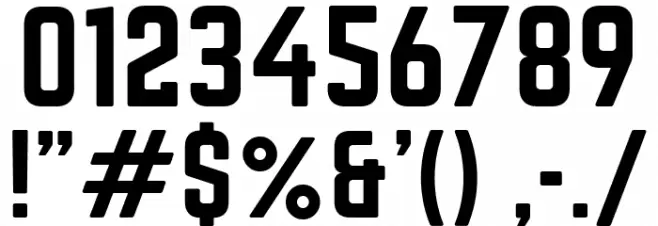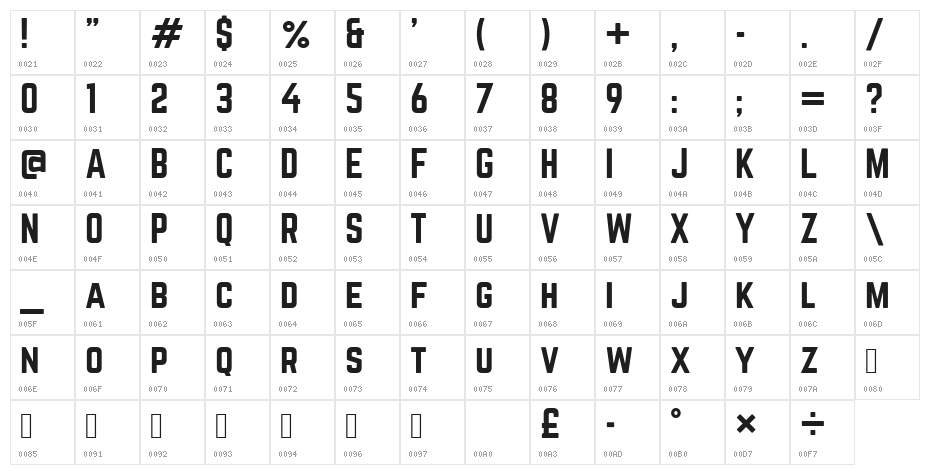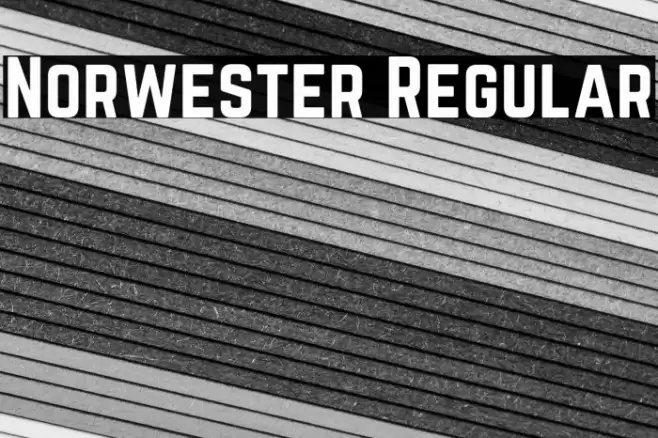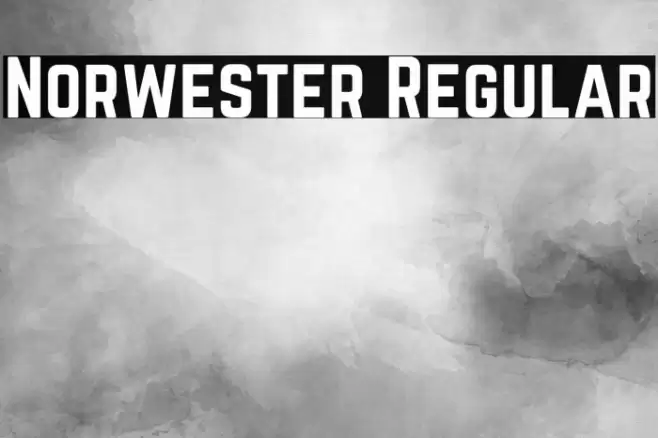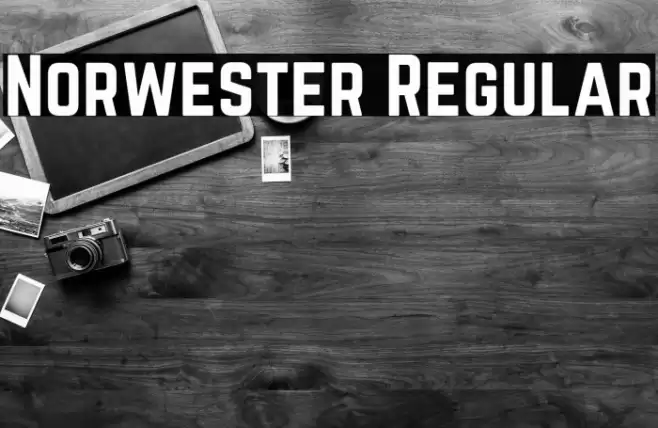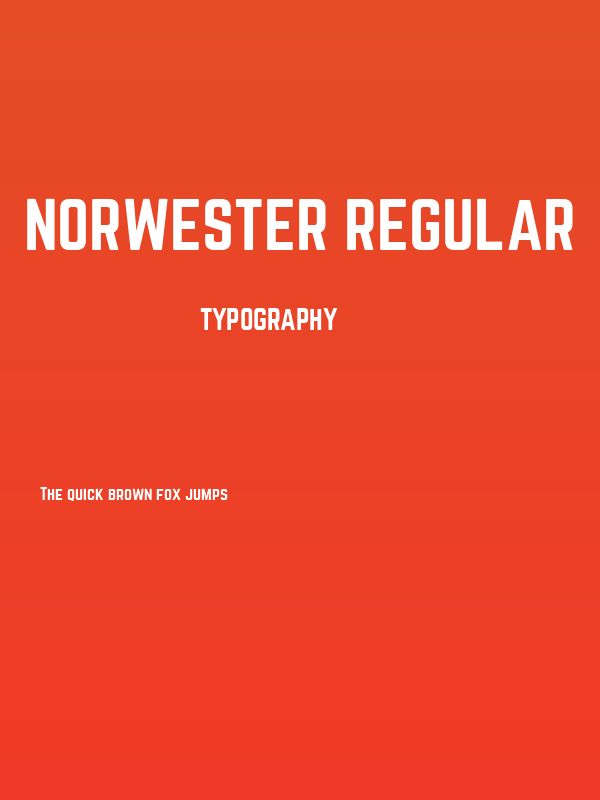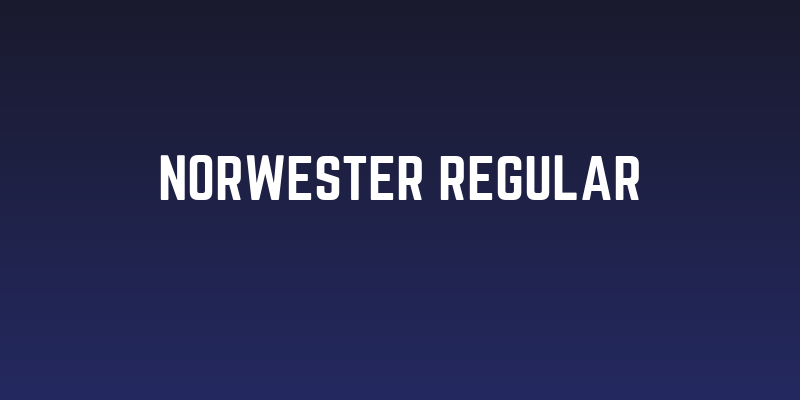
Norwester Regular Font
Norwester Regular Description
This font features a bold, geometric sans-serif style with clean lines and a modern aesthetic. The uppercase letters are uniform in height, creating a strong and cohesive appearance. The lowercase letters maintain the same geometric precision, offering a balanced look. The numerals are distinct and easy to read, with consistent stroke widths that match the letterforms. Special characters are designed with the same boldness, ensuring they integrate seamlessly with the rest of the typeface. Overall, this font conveys a sense of strength and clarity, making it suitable for a variety of design applications.